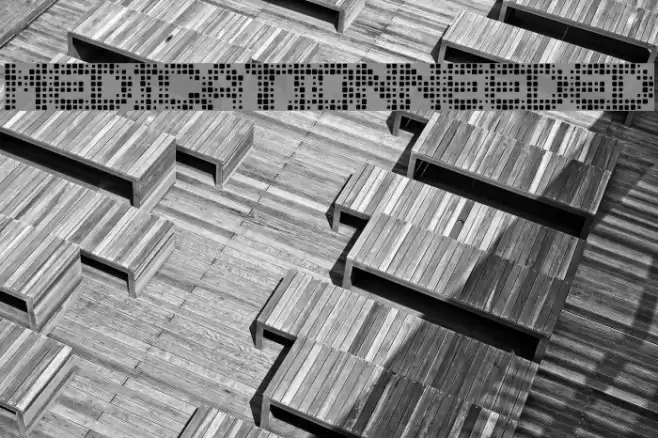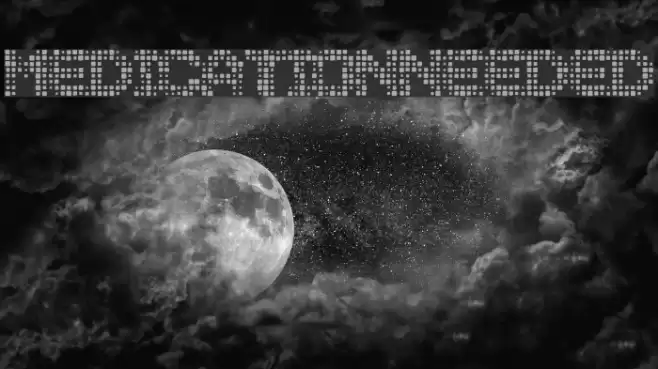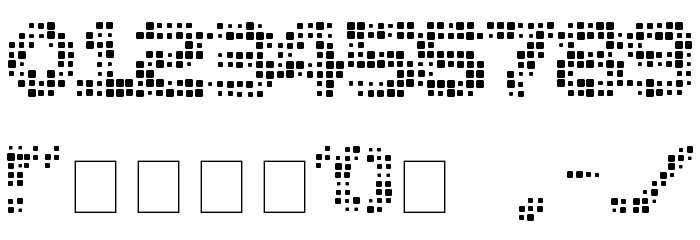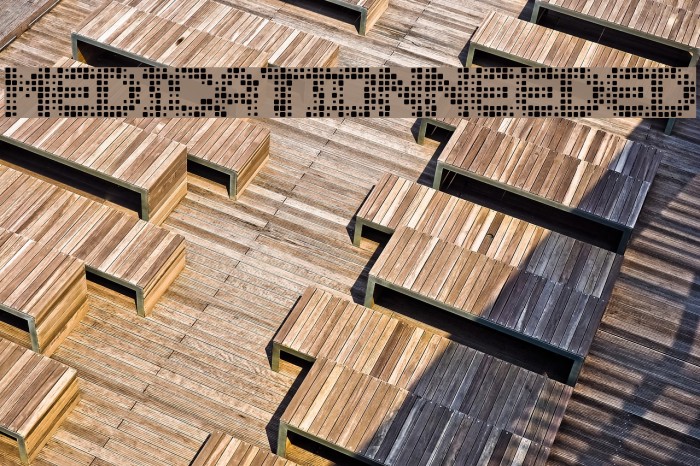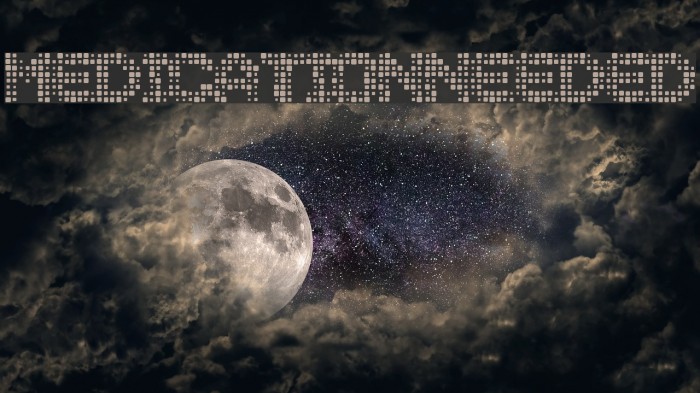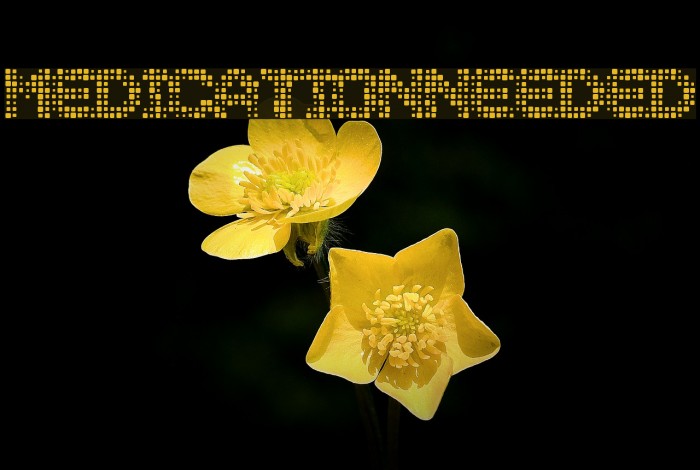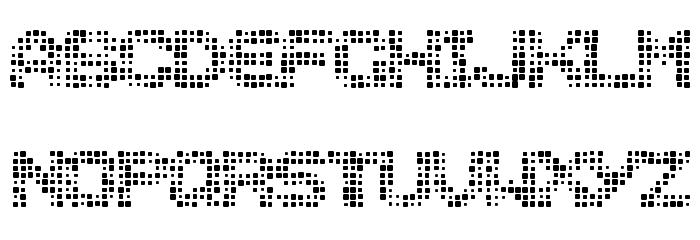
MedicationNeeded Font
MedicationNeeded Description
This font features a unique dot matrix design, reminiscent of digital displays and retro technology. Each character is composed of a grid of small, evenly spaced dots, creating a pixelated appearance. The uniformity of the dots gives the font a structured and mechanical feel, while the rounded edges of the dots add a touch of softness. The font maintains consistent spacing between characters, ensuring readability despite its unconventional style. Its geometric nature makes it suitable for projects that aim to evoke a sense of nostalgia or a futuristic aesthetic.
A dot matrix font with a retro digital display style from Pixel fonts.
- Proposed Projects: Ideal for digital-themed designs, retro video game graphics, tech-related branding, and futuristic posters.
- Overall Style: Retro, Futuristic
- Use Case: Logos, Posters, Digital Art